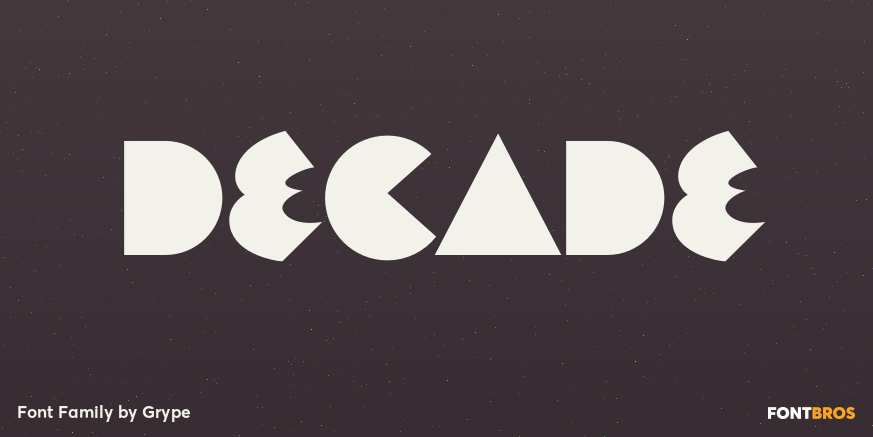
Decade
About Decade
Straying outside of our usual logo driven typestyles, but remaining within typographic styles that have a strong brandable vibe to them comes our Decade font. Spawned from the 1938 book "Letters and Lettering" by Paul Carlyle and Guy Oring,…